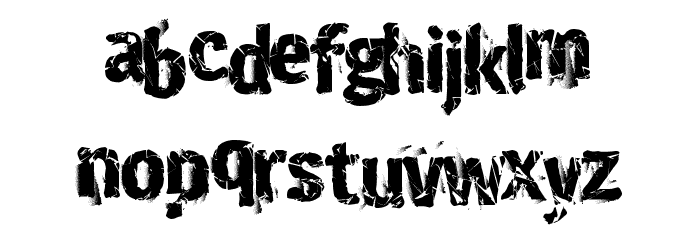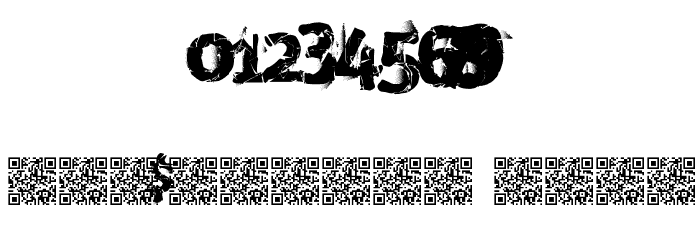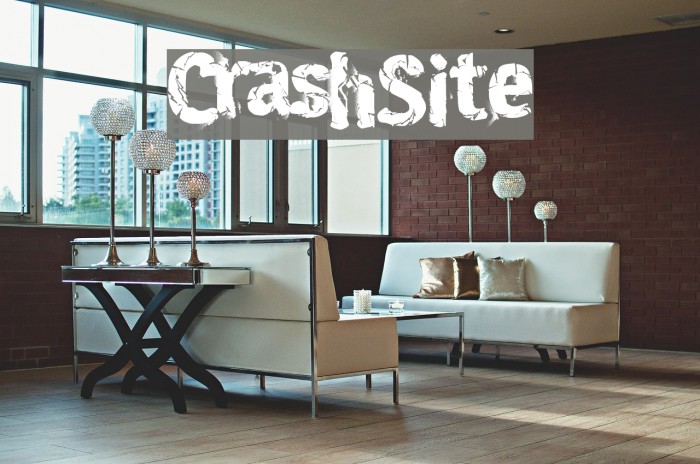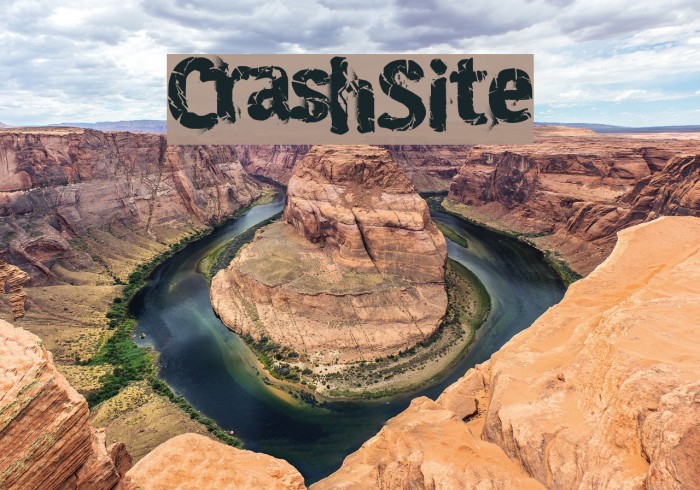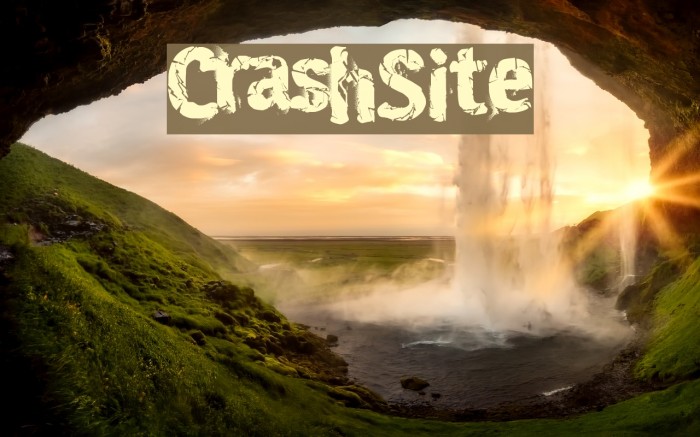
CrashSite Font
This font features a distressed, grunge style with a chaotic and fragmented appearance. The characters are bold and heavily textured, giving the impression of being weathered or eroded. The irregular edges and scattered ink splatters contribute to its rugged and raw aesthetic. Each letter maintains a consistent height, but the distressed elements vary, adding to the overall dynamic and unpredictable look. This font is ideal for projects that require a bold statement or an edgy, rebellious vibe. Its unique style makes it stand out, perfect for capturing attention in designs that aim to convey a sense of disruption or nonconformity.
A bold, distressed font with a grunge, fragmented appearance.
- Proposed Projects: Album covers, posters, streetwear branding, rebellious-themed events, or any design needing a bold, edgy look.
- Overall Style: Grunge, Edgy, Distressed